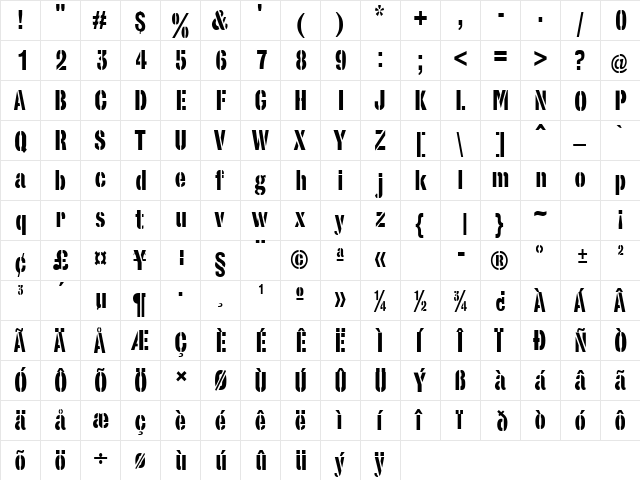
StencilSet Regular
Design Context for StencilSet Typeface
StencilSet has the rough pragmatism of spray-painted stencil signage, adding a raw, street-level authenticity to designs.
A strong choice for packaging that needs edge, warehouse aesthetics, and rough-and-ready visual identities.
Pro Tip: Use StencilSet at large sizes on packaging, posters, or apparel where the stencil cutaways read clearly. Avoid small sizes where those gaps become visual noise.